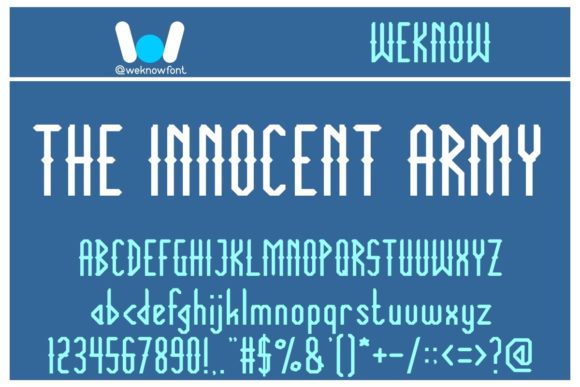
**Discover the Innocent Army Font: A Literary Masterpiece for Your Creative Pursuits**
Prepare to be captivated by The Innocent Army Font, a visionary display font crafted by the artistic minds at weknow. This extraordinary creation has emerged as the ultimate choice for book publishing, promising to transform your words into an unforgettable masterpiece.
This font is not merely a collection of letters; it is a gateway to a world of storytelling, where words dance and emotions soar. The Innocent Army Font possesses an inherent elegance that effortlessly elevates your creations, imbuing them with a timeless charm. Whether you seek to craft a captivating novel, a thought-provoking memoir, or a spellbinding poem, this font will guide your words like a maestro, orchestrating a symphony of emotions and imagination.
Dive into the depths of The Innocent Army Font, and you will discover a universe of possibilities. Its versatility knows no bounds, seamlessly adapting to a myriad of themes and genres. From whimsical fairy tales to epic sagas, from heart-wrenching dramas to spine-tingling thrillers, this font will effortlessly harmonize with your vision, enhancing your words with an unparalleled allure.
The Innocent Army Font is not just a tool for writing; it is an extension of your creativity, a conduit through which your imagination can take flight. It is a font that invites you to dream big, to explore the uncharted territories of your mind, and to share your stories with the world in a way that will leave an indelible mark.
Embrace The Innocent Army Font today, and embark on a literary adventure like no other. Let your words flow like an enchanting river, captivating your readers with every turn of the page. With this font as your ally, your stories will transcend the ordinary, becoming extraordinary tales that resonate with hearts and minds for generations to come.